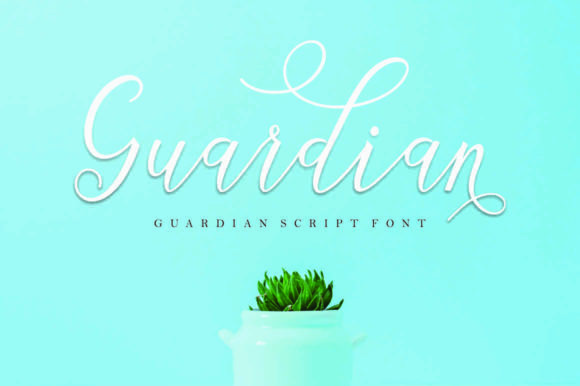
The Perfect Script Font for Your Next Creative Project
Have you ever found yourself stuck in front of a blank canvas, struggling to bring your vision to life? You’re not alone. Many designers face this challenge, but what if you had the right tools to spark your creativity? For those who crave a touch of elegance and sophistication in their designs, the Guardian Script Font is here to save the day.
This luxurious script font is designed to add a personal touch to your projects, making it perfect for headlines, logotypes, and branding. With its modern feel, the Guardian Script Font is a versatile tool that can elevate your designs from ordinary to extraordinary. Whether you’re a seasoned designer or just starting out, this font is sure to become your new go-to for creating stunning visual content.
Key Features of Guardian Script Font
- Font Style: A beautiful, elegant, and highly legible script font, perfect for formal and informal use.
- Unique Characteristics: Features a unique blend of modern and traditional elements, making it a standout choice for designers and typographers.
Guardian Script Font Review
Overall, I think the Guardian Script Font is a beautiful and elegant addition to any design project. ✨ The flowing curves and classic feel of the font make it perfect for creating a sense of sophistication and luxury.
- Highly customizable: The font comes with a wide range of OpenType features that allow for a high degree of customization, making it easy to fine-tune the look and feel of the font to suit your needs.
- Perfect for invitations and formal documents: The classic, elegant feel of the font makes it a great choice for formal invitations, wedding stationery, and other formal documents.
- Looks great at various sizes: The font scales well and looks great at a range of sizes, from small to large.
However, there are a few limitations to consider: ⚠️ The font may be a bit too ornate for some projects, and the OpenType features can be overwhelming for designers who are not familiar with them. Additionally, the font may not be as readable at very small sizes.
Overall, I think the Guardian Script Font is a great choice for designers who are looking for a elegant and sophisticated font. With its high level of customization and classic feel, it’s a great addition to any design project. However, designers should be aware of the potential limitations and use the font judiciously.
For optimal results, use the Guardian Script Font in combination with a clean and simple design. Avoid using it in large blocks of text, and instead use it for headings or titles. Experiment with different font sizes and styles to find the right balance for your design.
The Guardian Script Font is ideal for use in:
– Headings and titles
– Quotes and captions
– Any design that requires a touch of elegance and sophistication
Yes, the Guardian Script Font is fully customizable. Designers can adjust the font’s size, color, and spacing to suit their project’s requirements. Additionally, the font’s OpenType features allow for advanced typographic control, including ligatures, swashes, and stylistic sets.